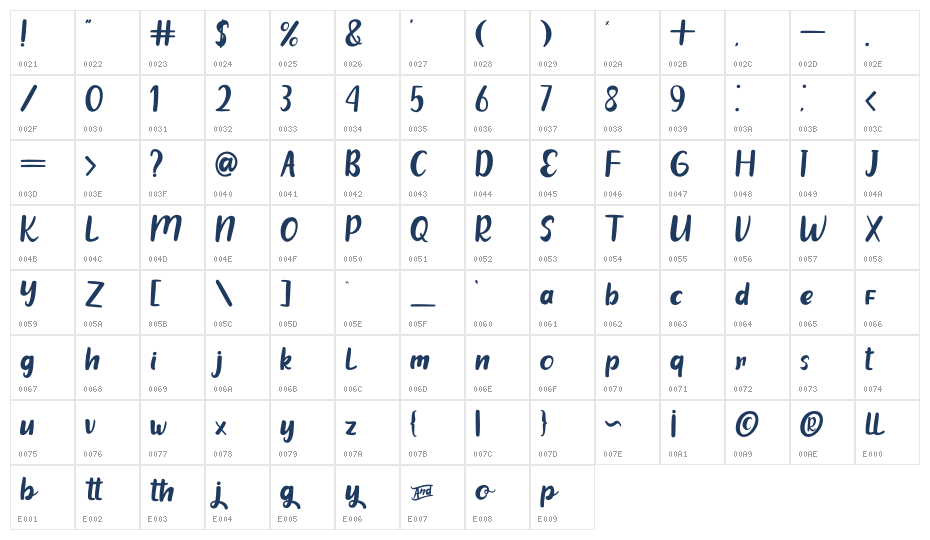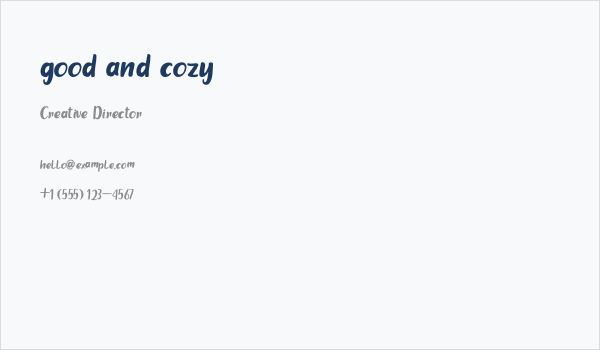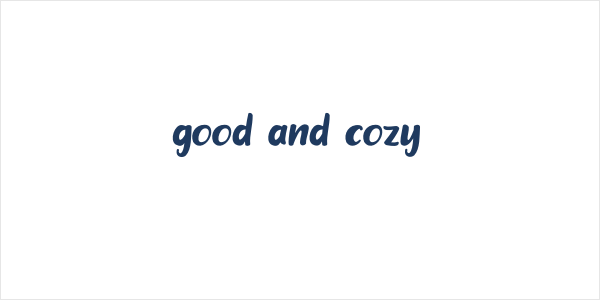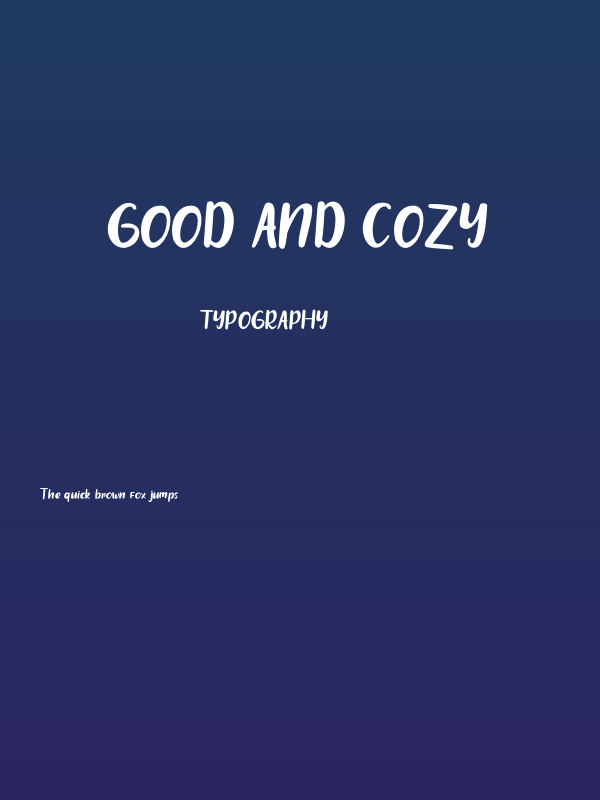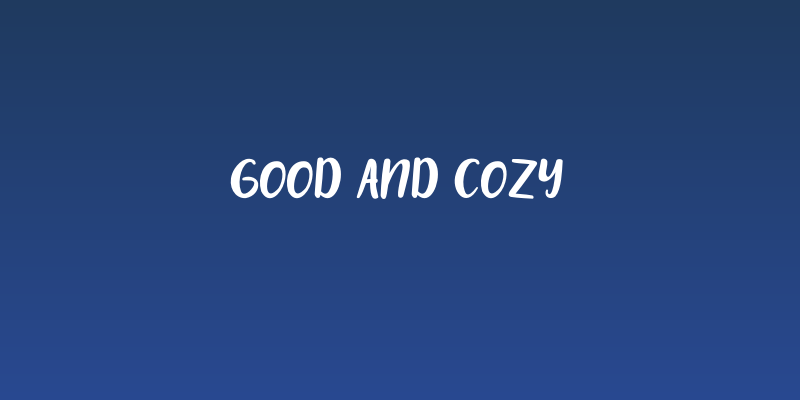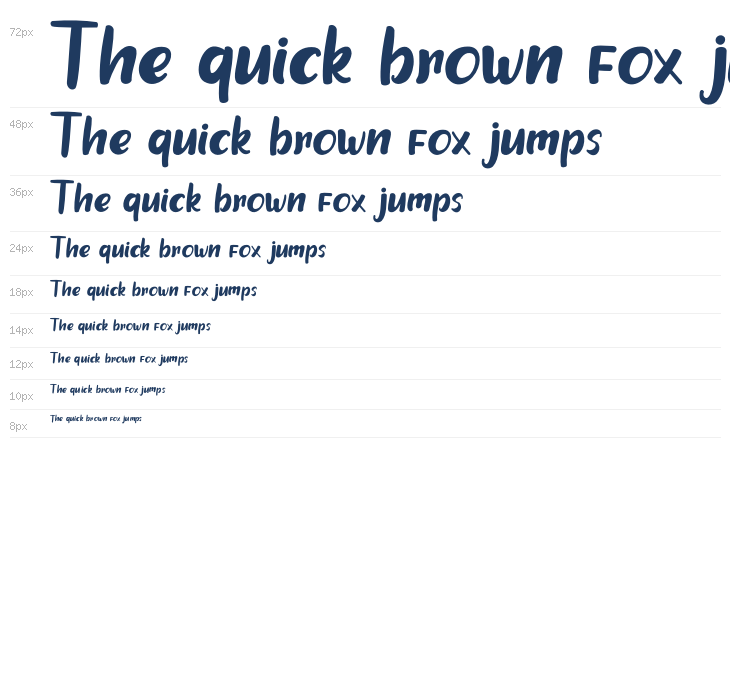
good and cozy Font
good and cozy Description
This font exudes a warm and inviting aesthetic, characterized by its smooth, rounded edges and consistent stroke width. The letters are crafted with a friendly and approachable style, making it ideal for conveying a sense of comfort and ease. The characters are evenly spaced, providing a balanced and harmonious appearance. Its simplicity and clarity ensure readability while maintaining a unique charm. The font's design is versatile, suitable for both digital and print media, and it can easily adapt to various themes and contexts.
| Proposed Projects | Perfect for branding projects, cozy-themed websites, children's books, and lifestyle blogs. |